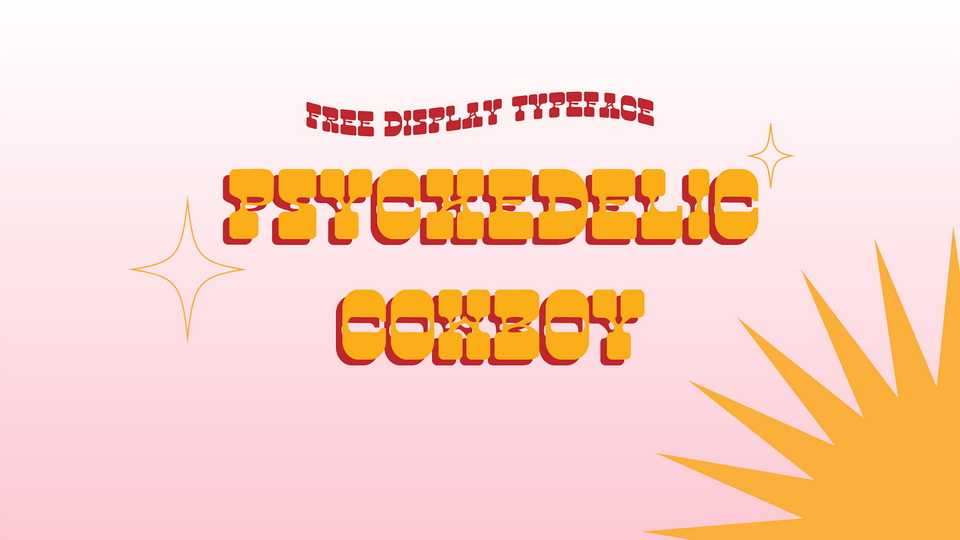
Download Psychedelic Cowboy font, a groovy reverse contrast display typeface inspired by cowboys, westerns and the 70s. Psychedelic Cowboy is great for logos, badges, posters and other vintage projects.
Designer: Malwina Jungermann